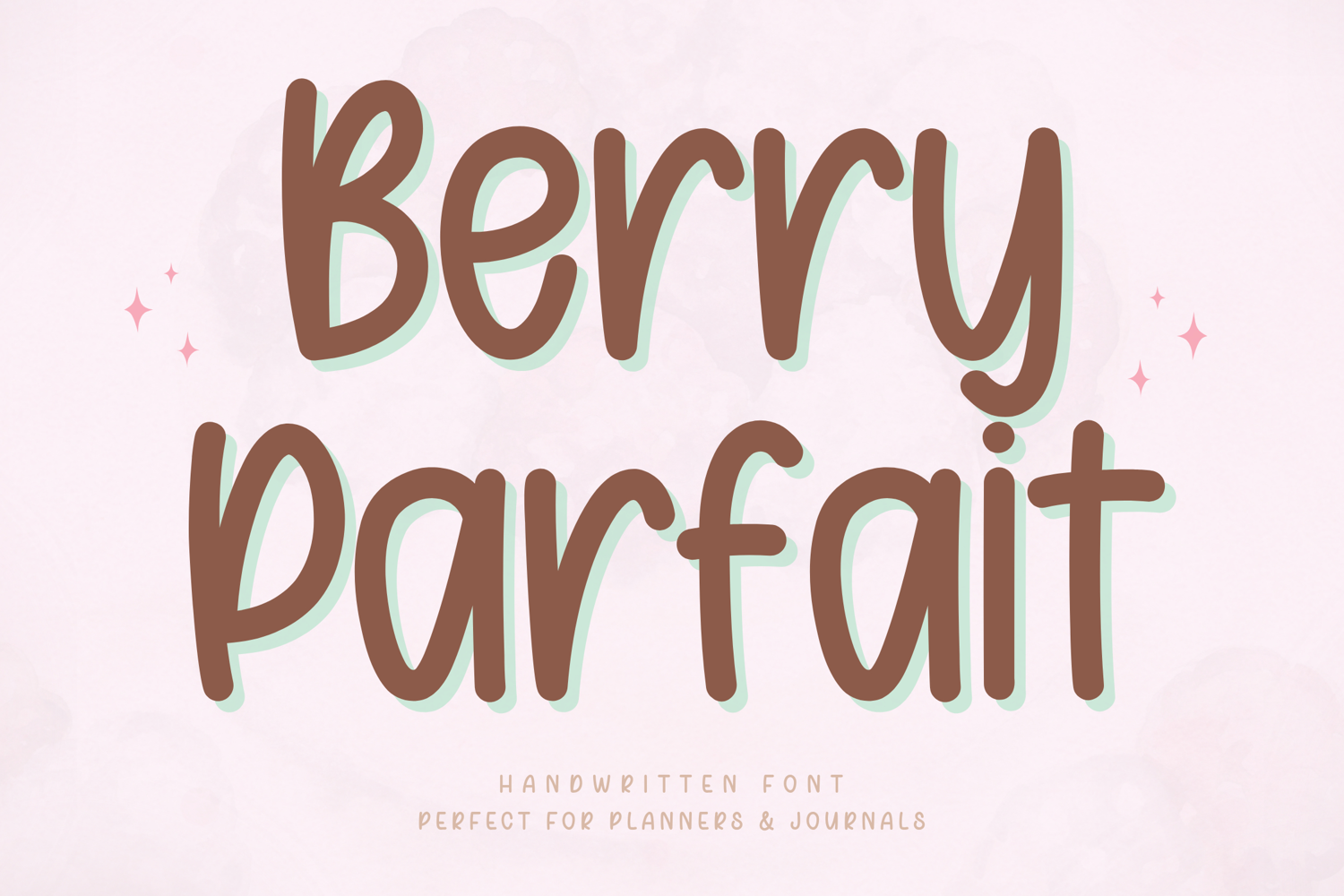
Berry Parfait Cute Handwritten Font
Berry Parfait – Cute Handwritten Font
Berry Parfait is a sweet and playful handwritten font designed to bring a soft, cheerful, and friendly vibe to your creations. With its rounded shapes and smooth strokes, this font feels fun, approachable, and perfect for everyday creative projects.
Its cute and clean style makes it especially suitable for planners, journaling, and Cricut crafts, while still being versatile enough for branding and social media use.
Key Features:
Uppercase & lowercase letters
Rounded and cute handwritten style
Clean and easy to read
Numbers, punctuation & symbols
Perfect For:
Digital planners & journaling
Stickers & Cricut projects
Social media posts
Cute branding & packaging
School & note-taking designs
Berry Parfait is designed to give a soft, happy, and cozy feeling, making it perfect for designs that need a cute and friendly handwritten touch.